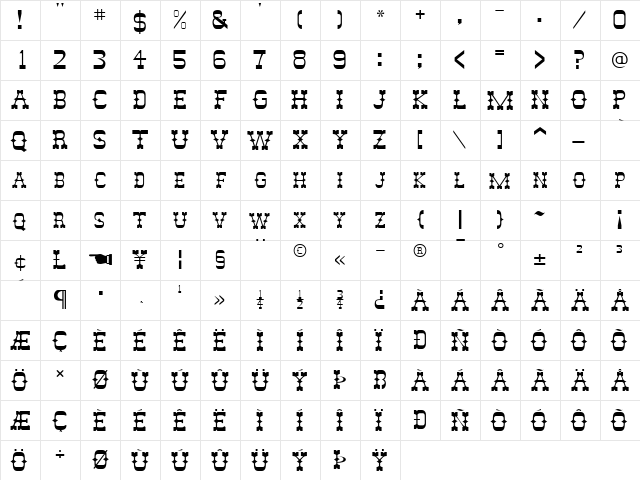
SlimPickensCapsSSK Regular
Design Context for SlimPickensCapsSSK Typeface
SlimPickensCapsSSK is a composed and adaptable typeface that performs quietly and consistently across a wide range of design contexts.